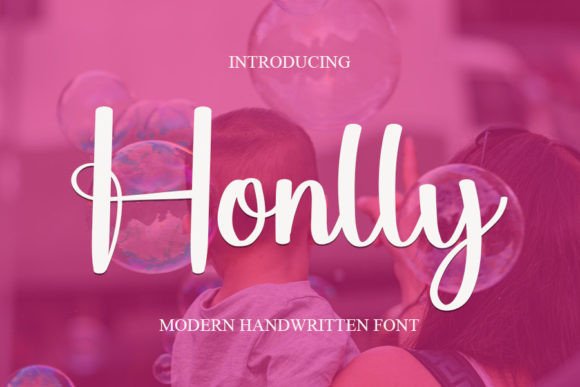
Unleash the elegance and charm of Honlly Font, a captivating handwritten script that will transform your creative projects into masterpieces. Inspired by the timeless art of calligraphy, this font exudes a modern vibe with its spotless form and balanced strokes.
Honlly Font is not just a collection of letters; it's an expression of artistry, designed to evoke emotions and elevate your designs. Whether you're crafting wedding invitations, place cards, logos, or social media posts, Honlly Font will add a touch of sophistication and charm that will leave a lasting impression.
With its carefully crafted curves and subtle variations, Honlly Font brings a sense of warmth and personality to your designs. Its versatile nature makes it suitable for a wide range of projects, from elegant wedding stationery to whimsical branding materials.
Imagine the joy of your guests as they receive their wedding invitations adorned with Honlly Font's beautiful script. The delicate strokes and graceful flourishes will create an air of excitement and anticipation for your special day.
And it's not just for weddings; Honlly Font adds a touch of magic to any project. Create eye-catching logos that stand out from the crowd, design social media posts that captivate your audience, or elevate your branding materials to new heights.
Honlly Font is more than just a font; it's an investment in creativity and style. Its timeless appeal ensures that your designs will remain relevant and captivating for years to come.
Join the creative revolution and embrace the beauty of Honlly Font. Let its elegant strokes and modern vibe transform your projects into works of art. Experience the joy of creating designs that resonate with your audience and leave a lasting impression.